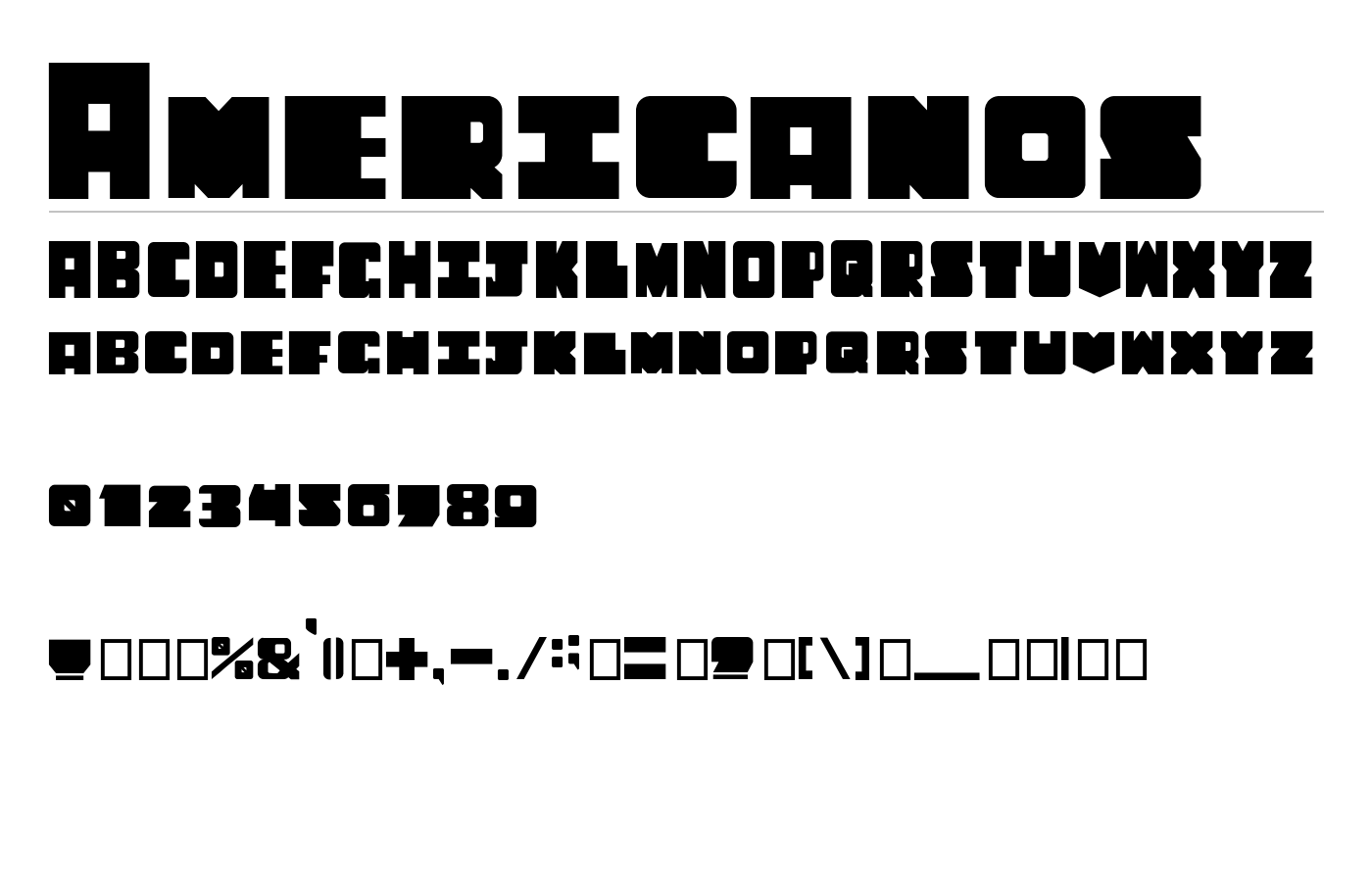
Americanos is a bold, heavy slab serif font with a strong, blocky presence and a slightly condensed width. Its sharp, geometric edges and thick strokes create a powerful and impactful look, making it ideal for headlines, logos, and branding that need to command attention with a rugged, assertive style. This font suits designs seeking a vintage Americana vibe with a modern twist, perfect for packaging, posters, and editorial use where boldness and clarity are key.
Americanos Font